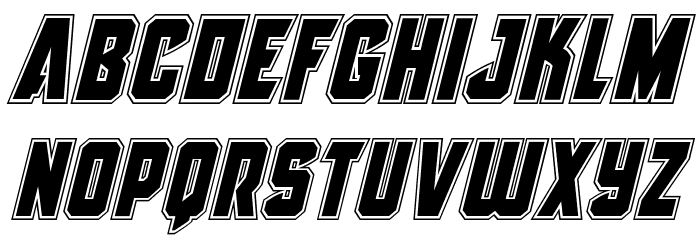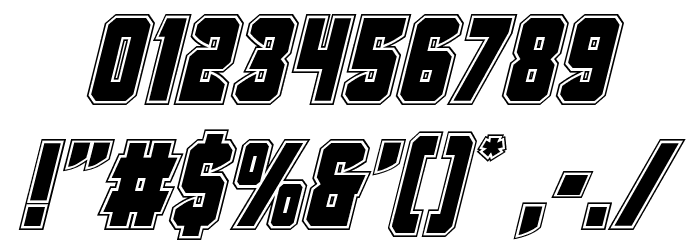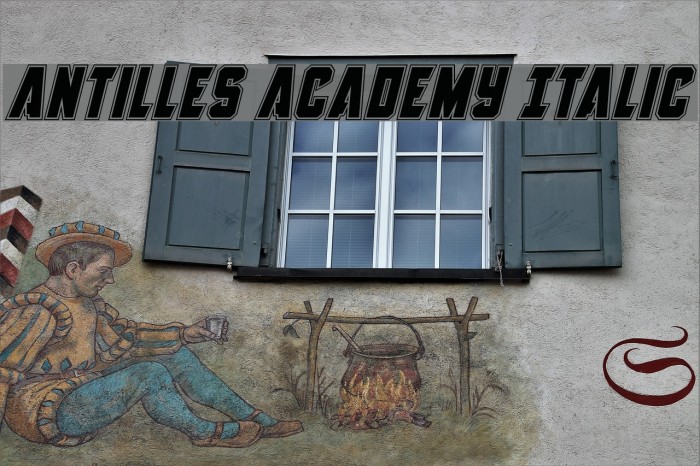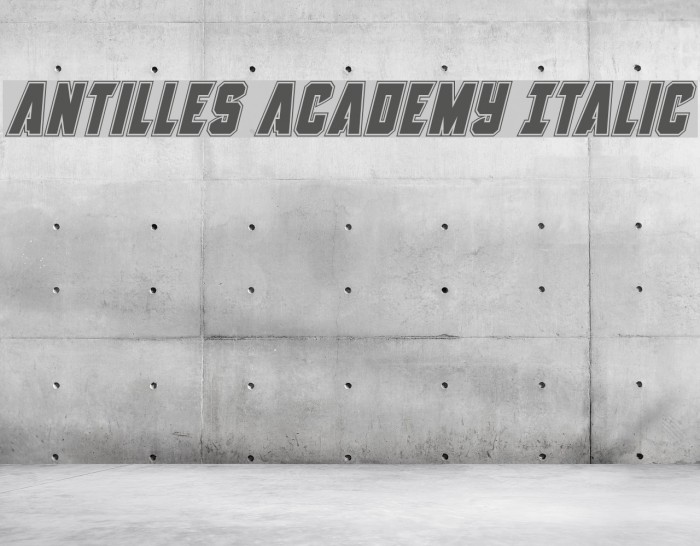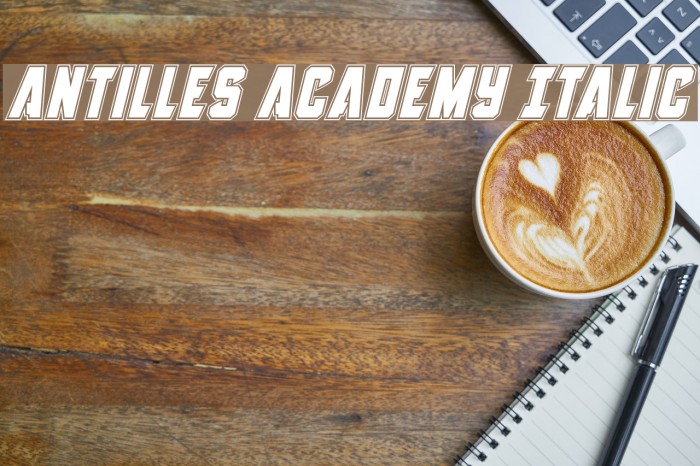
Antilles Academy Italic Font
This font features a bold and dynamic style with a strong italic slant, giving it a sense of motion and energy. The characters are outlined with a thick border, enhancing their visibility and impact. The uppercase letters are particularly striking, with sharp angles and a geometric design that conveys a modern and futuristic feel. The numbers and special characters maintain the same boldness and angularity, ensuring consistency across all glyphs. This font is perfect for projects that require a strong visual presence and a contemporary aesthetic.
A bold, italic font with geometric angles and a dynamic, modern style.
- Proposed Projects: Ideal for sports branding, video game titles, posters, and dynamic advertising campaigns.